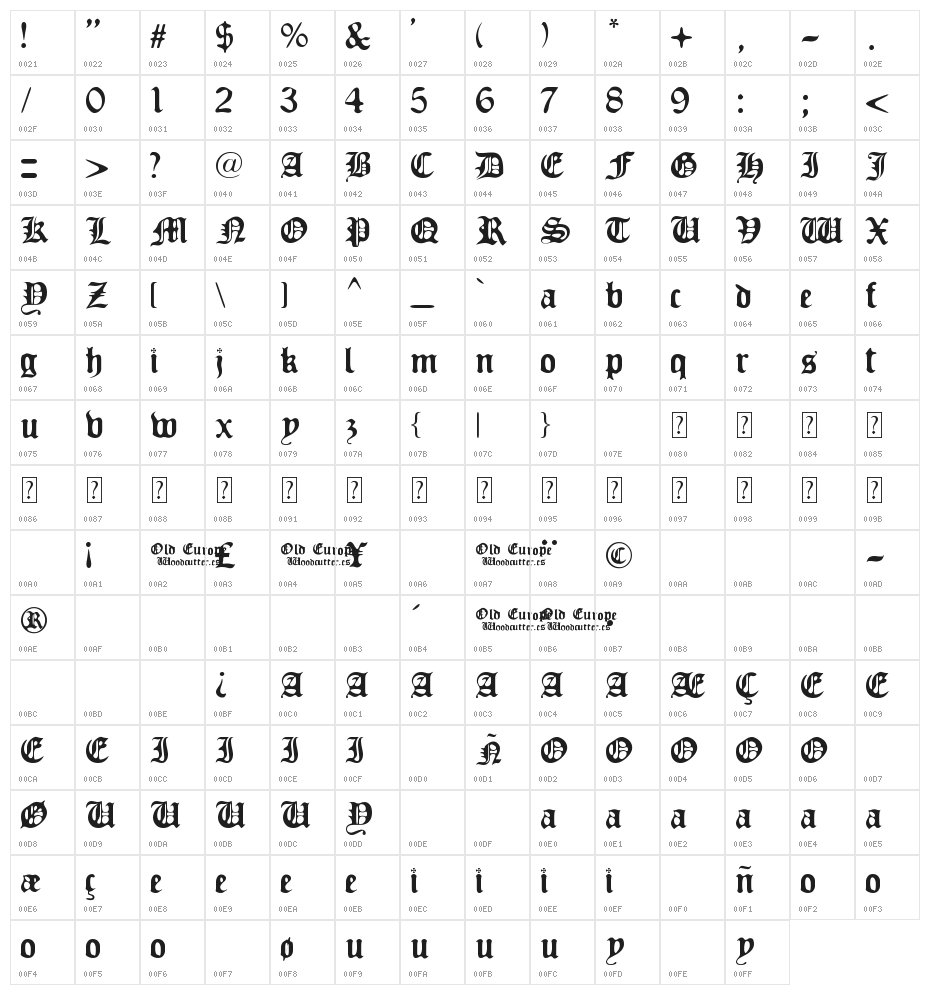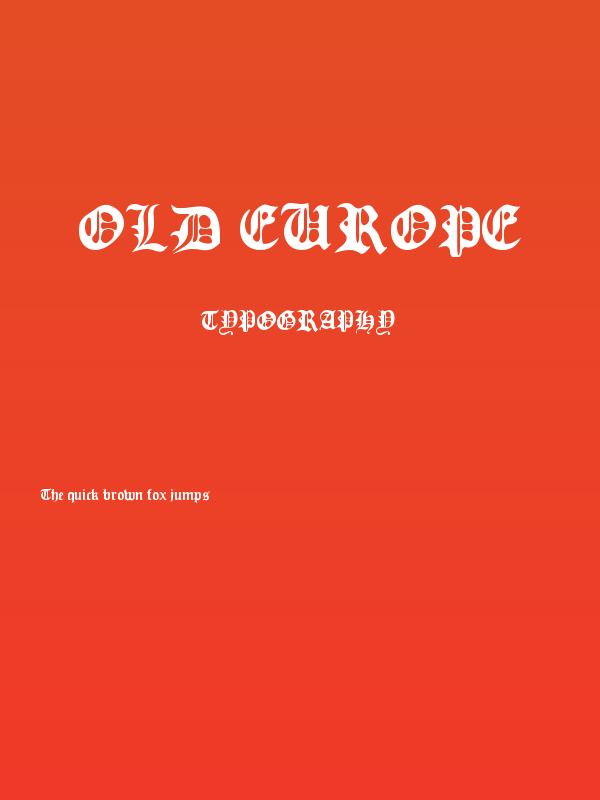
Old Europe Font
Old Europe Description
This font exudes a classic, historical charm reminiscent of medieval manuscripts and ancient texts. Its intricate design features ornate, flowing lines and sharp edges, capturing the essence of traditional calligraphy. The uppercase letters are particularly elaborate, with decorative flourishes that enhance their regal appearance. The lowercase letters maintain a consistent style, offering a harmonious blend of elegance and readability. Numbers and special characters are crafted with the same attention to detail, ensuring a cohesive look across all elements. This font is perfect for projects that require a touch of sophistication and historical authenticity.
| Proposed Projects | Ideal for historical documents, wedding invitations, book covers, and branding that seeks a vintage or classic aesthetic. |